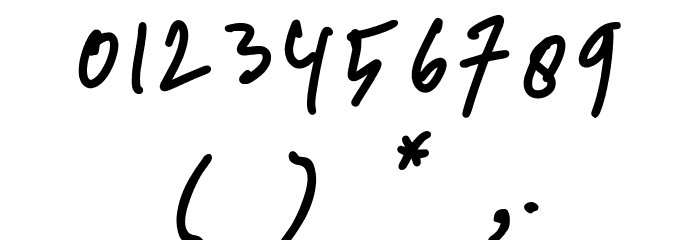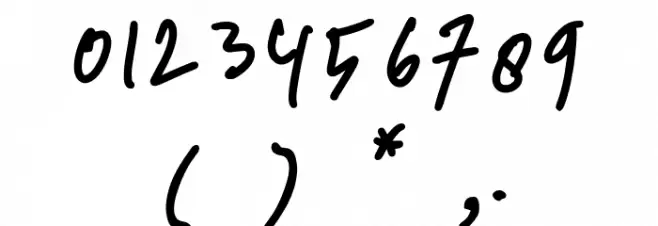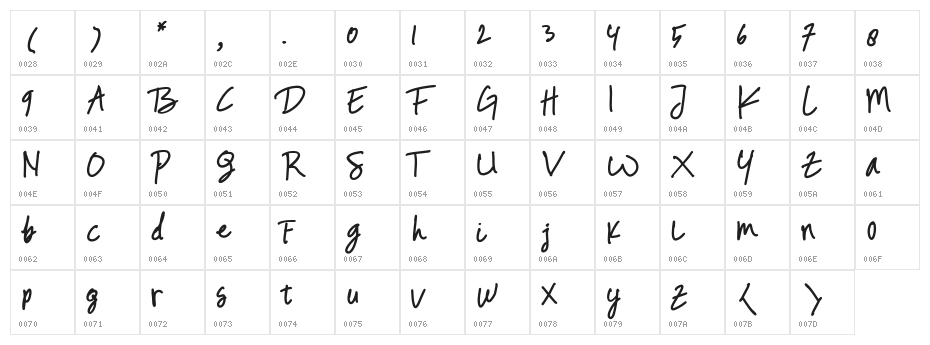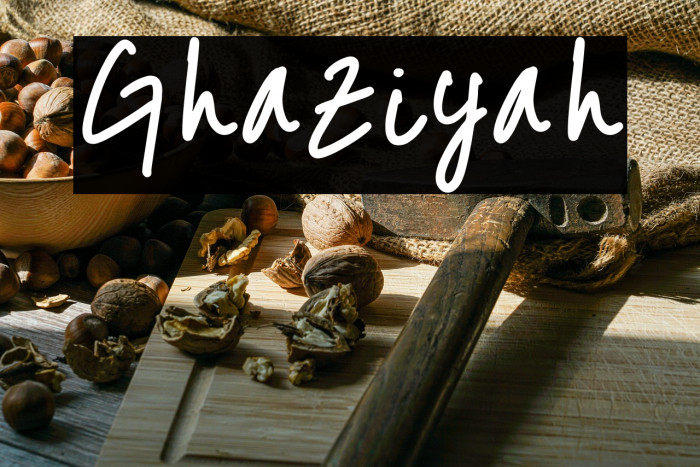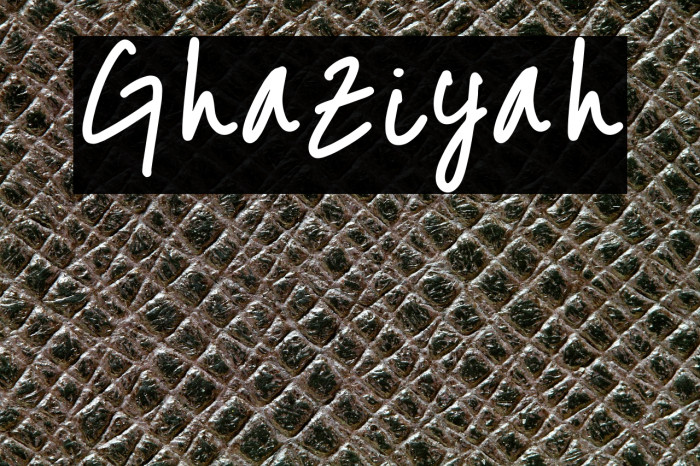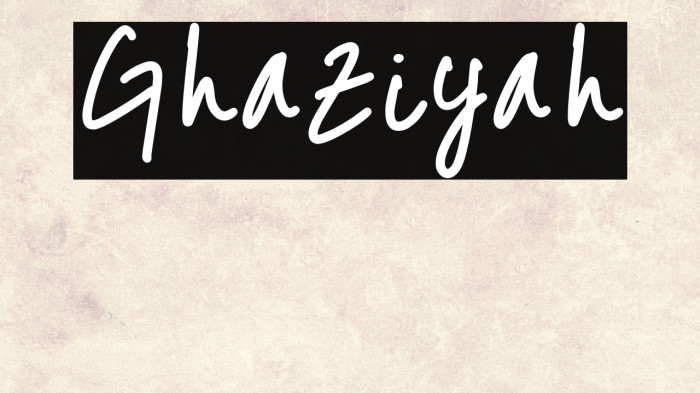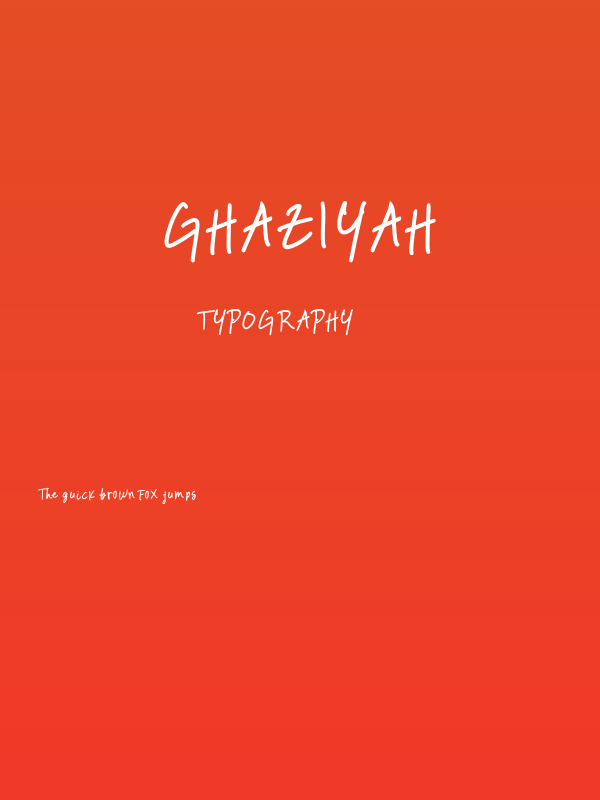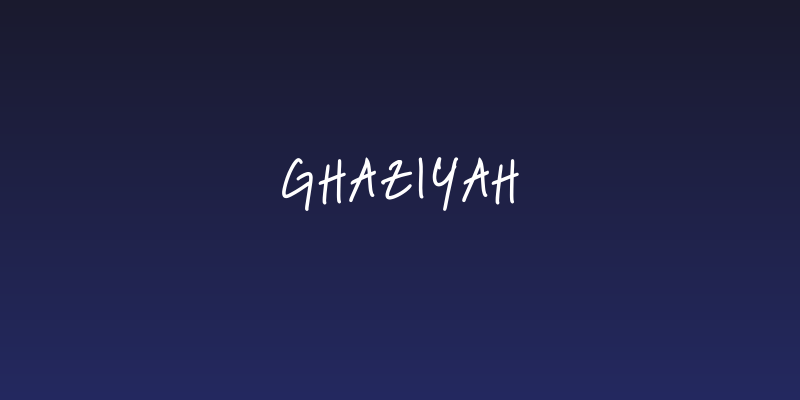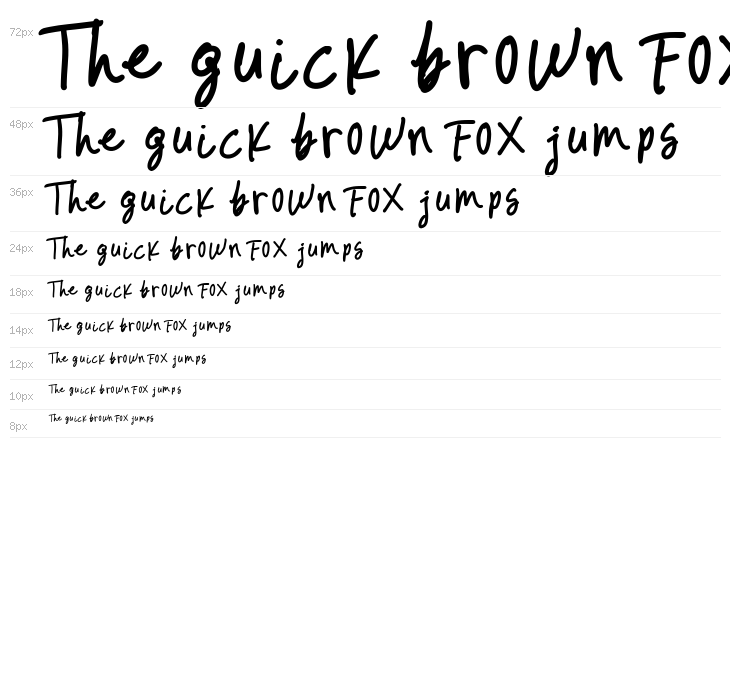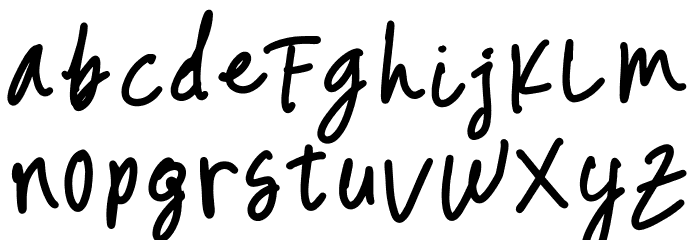
Ghaziyah Font
Ghaziyah Description
This font exhibits a lively and informal handwritten style, characterized by its fluid and dynamic strokes. The letters are slightly slanted, giving a sense of movement and energy. The uppercase letters are bold and prominent, while the lowercase letters maintain a consistent flow, enhancing readability. The numerals and special characters are crafted with the same playful touch, ensuring a cohesive look across all characters. The overall appearance is casual yet stylish, making it suitable for projects that require a personal and approachable feel.